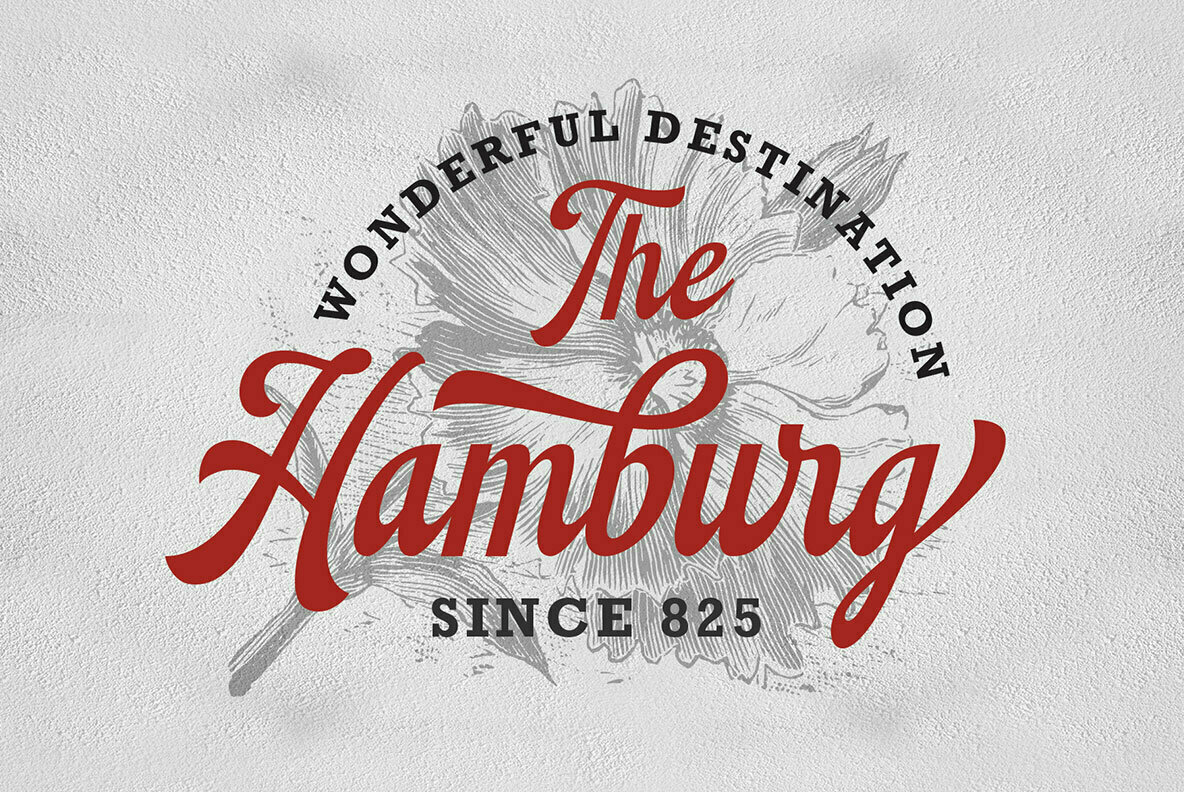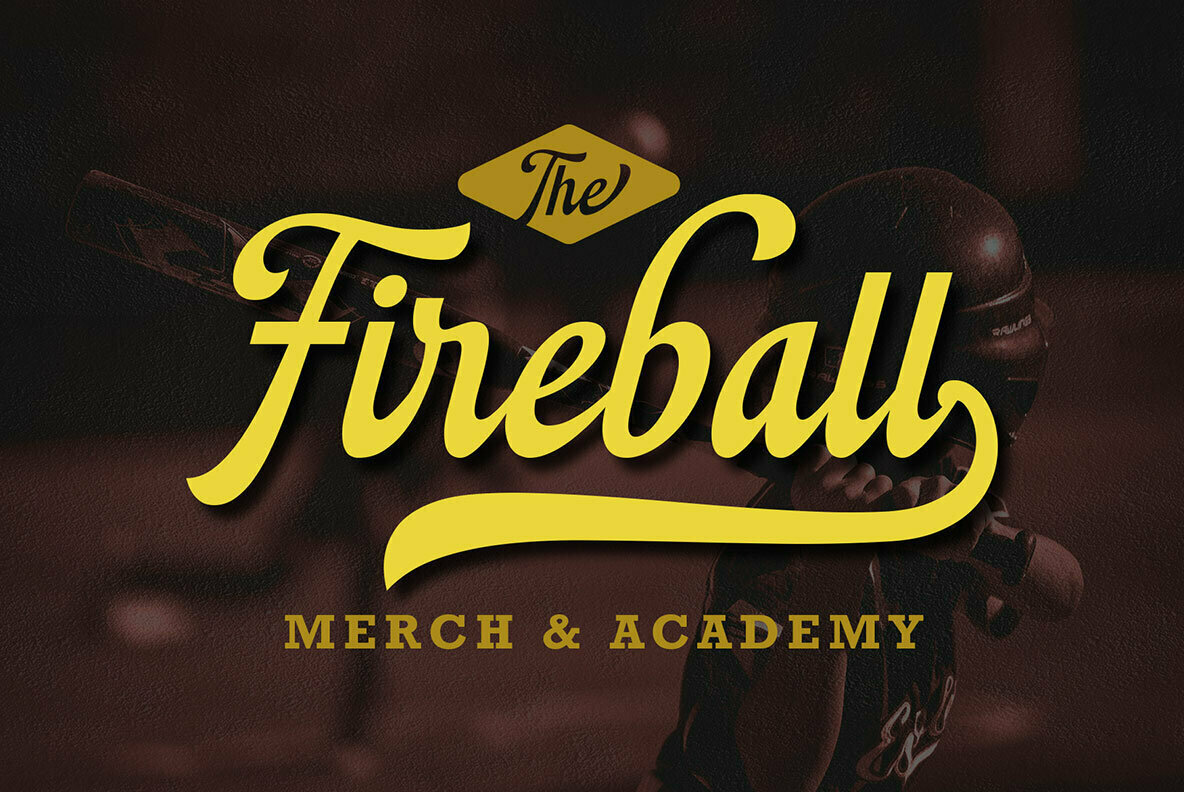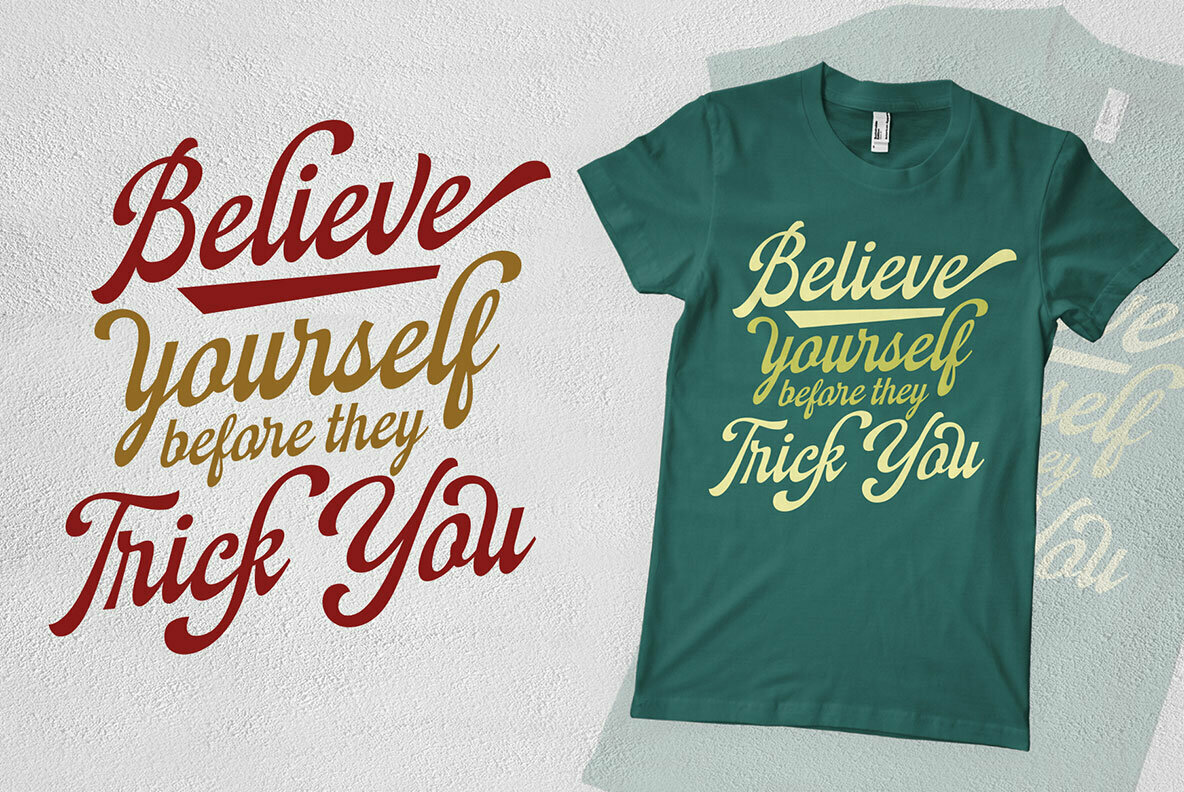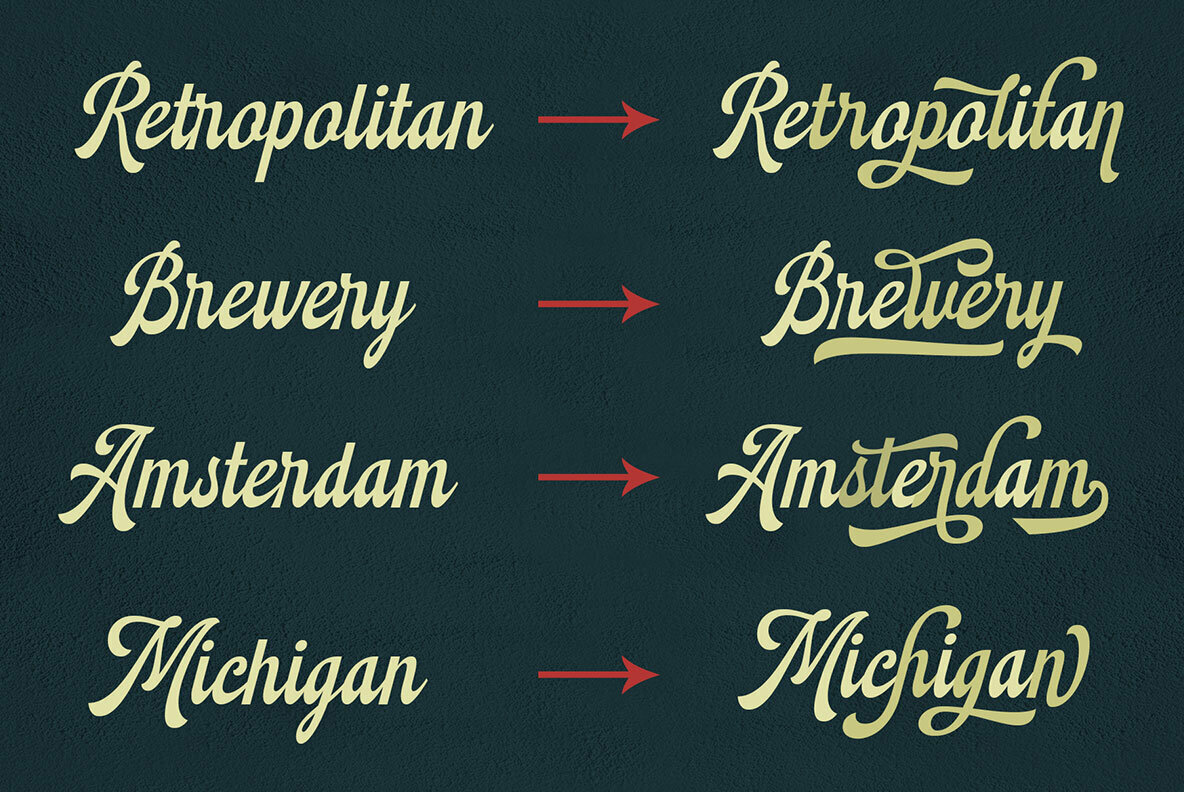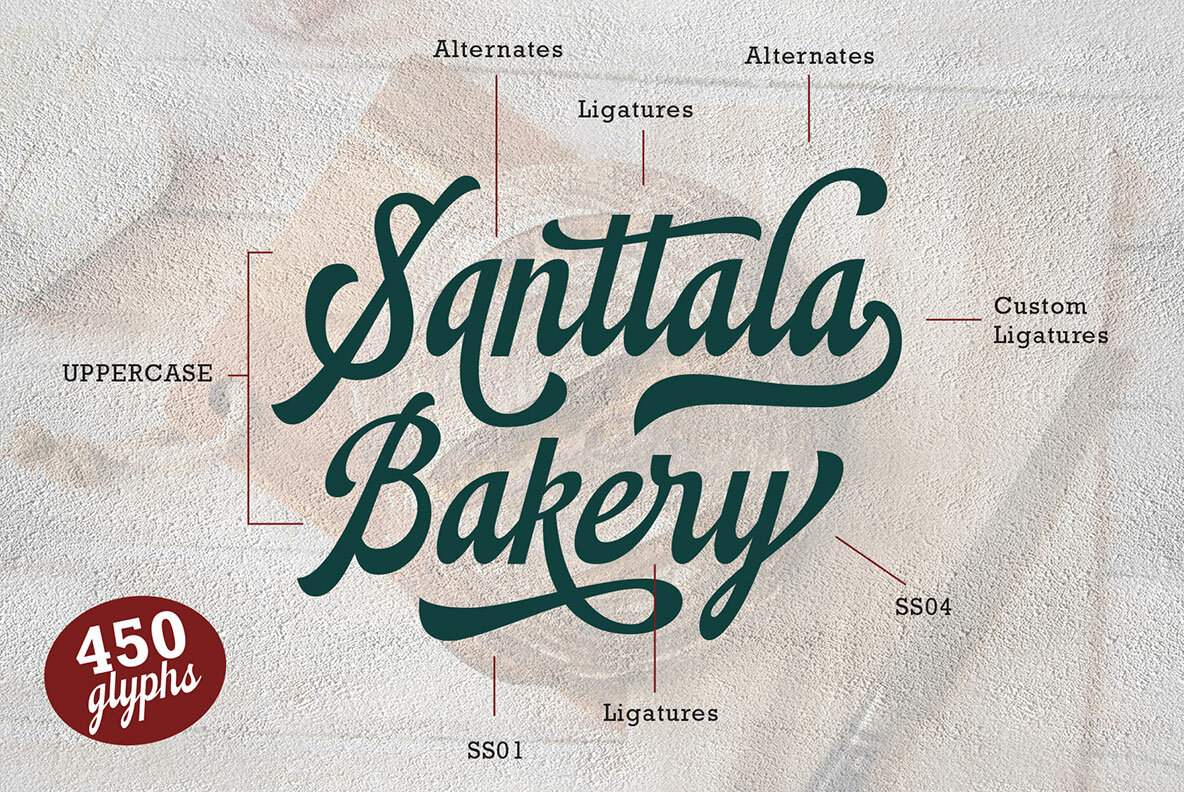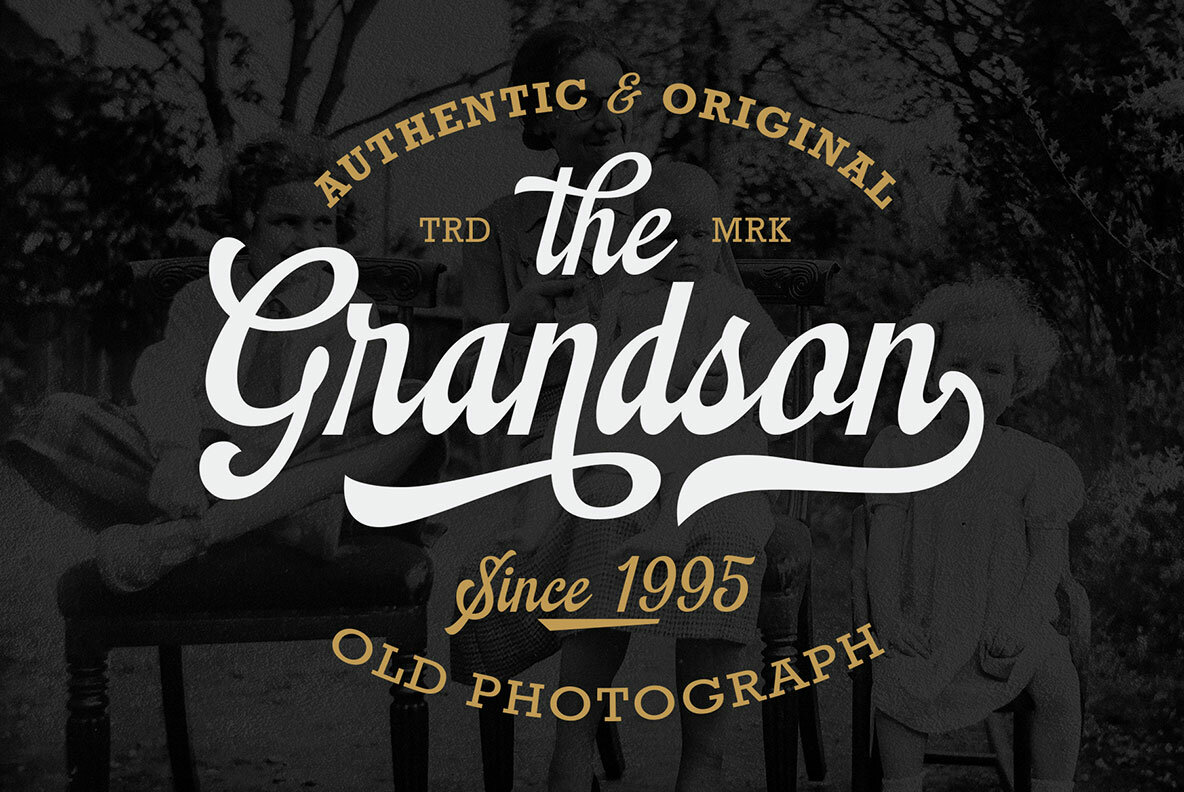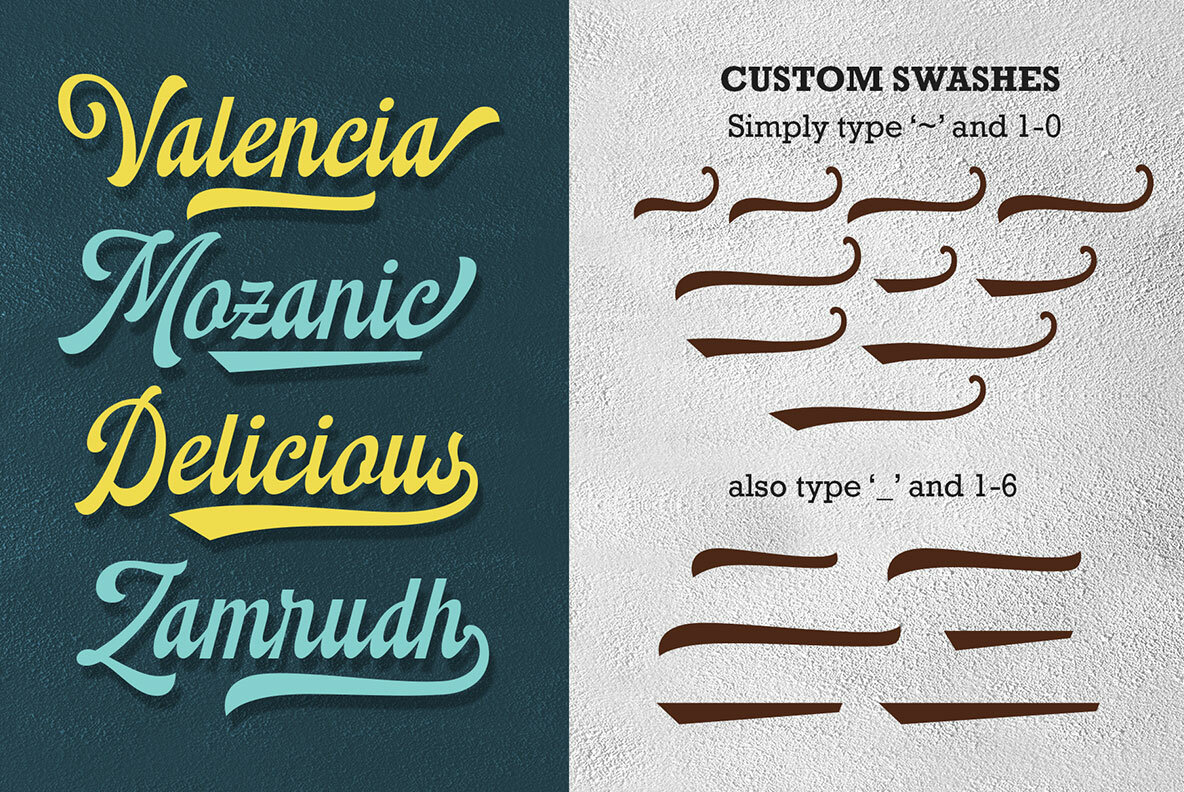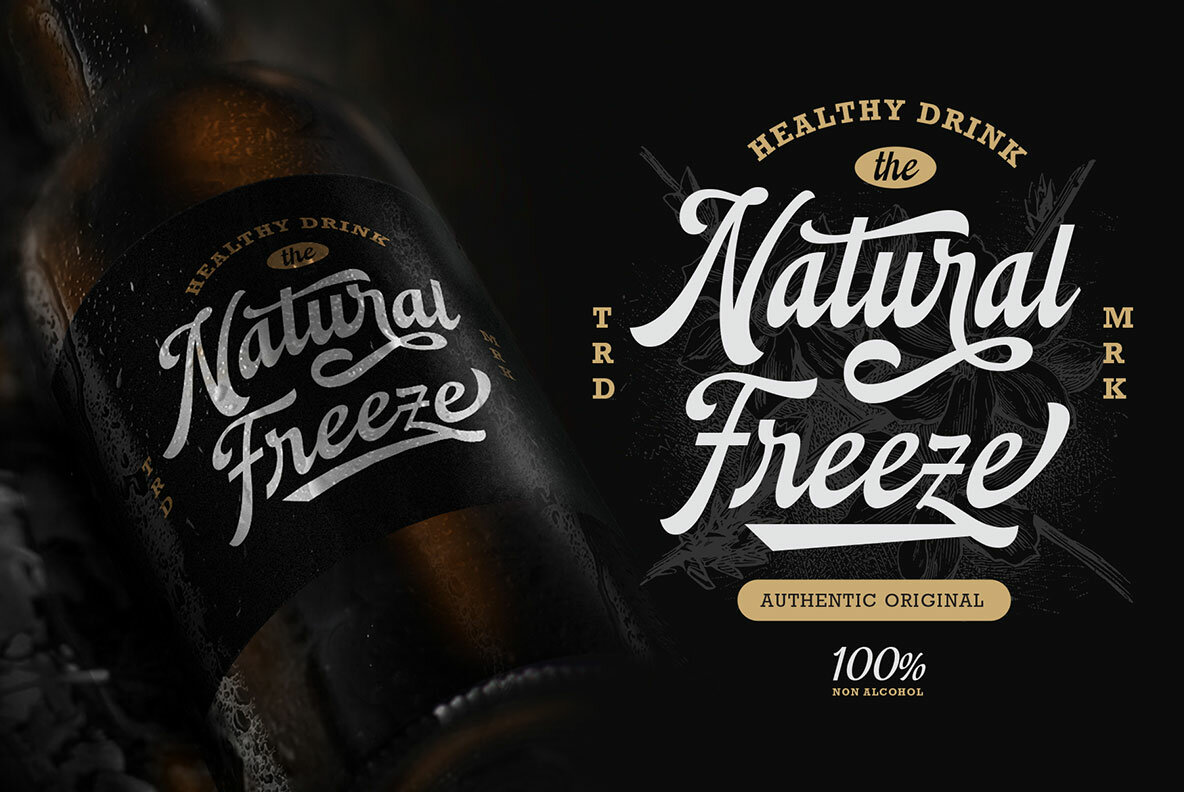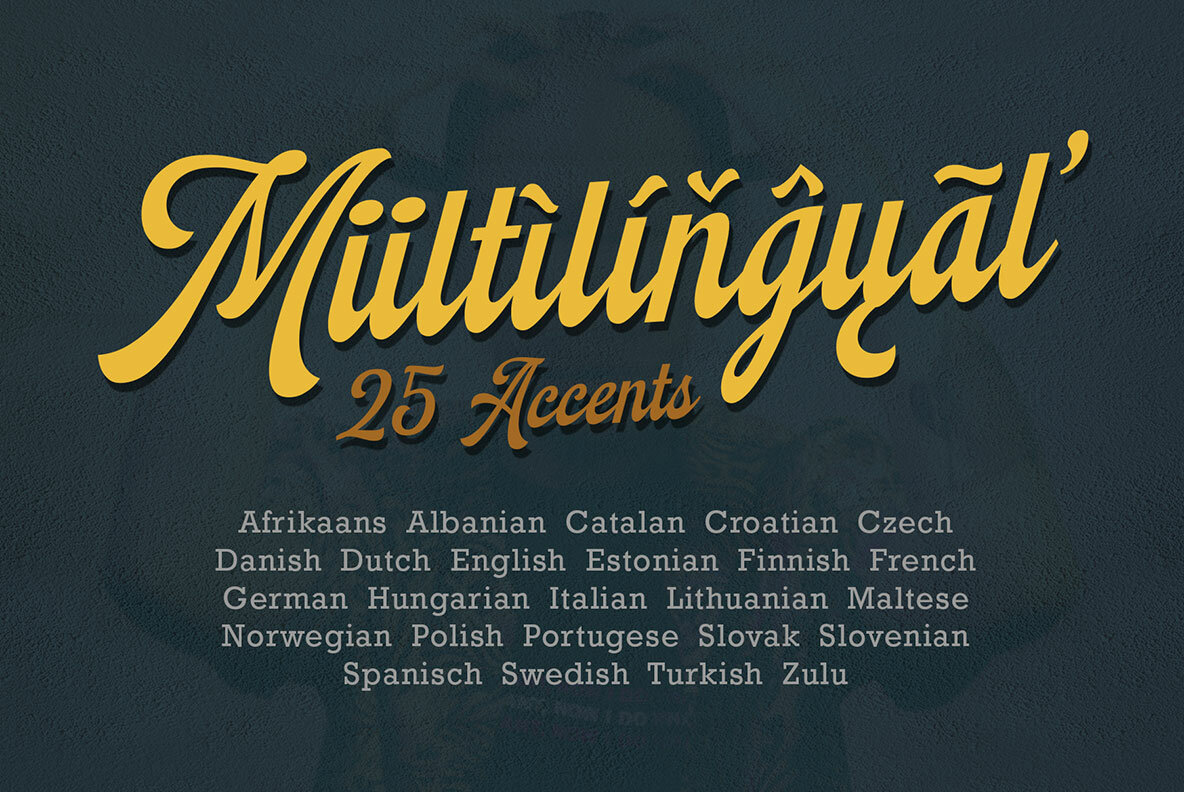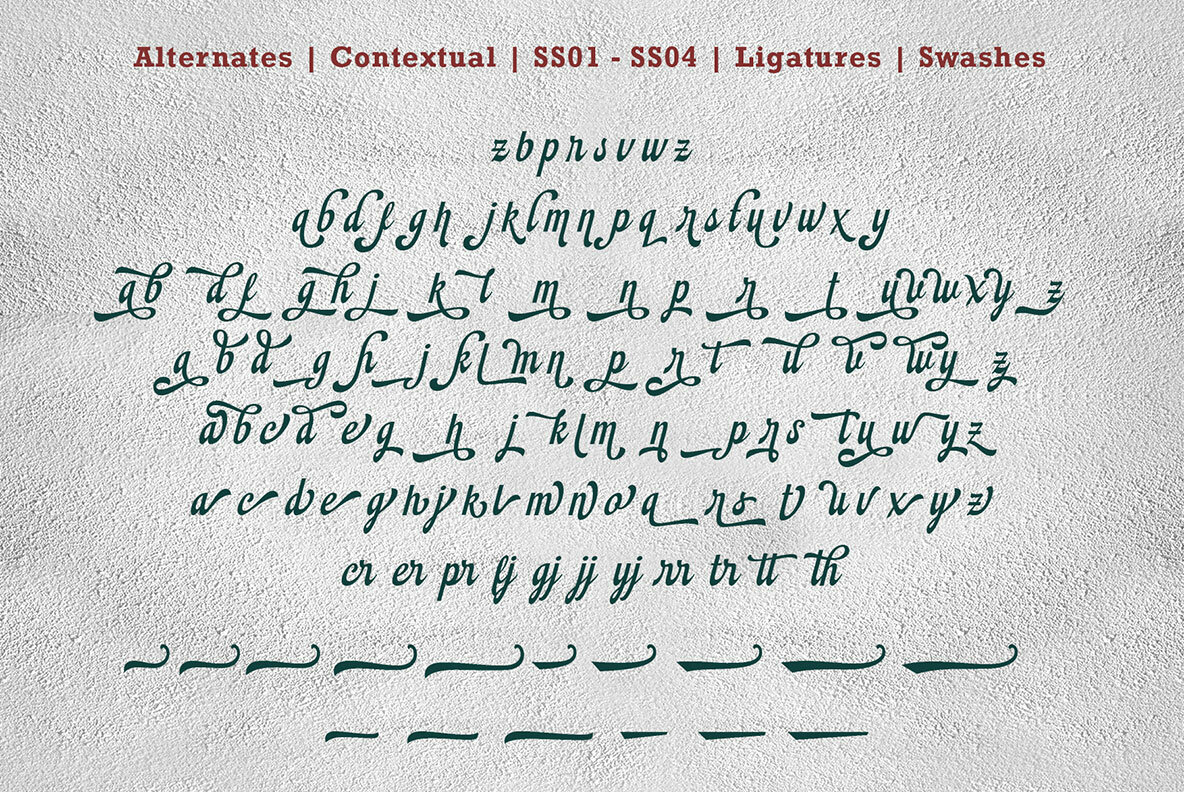
Montheim Font
Montheim
Montheim seamlessly combines the charm of the modern retro movement with the flair of brush calligraphy, offering a medium-weight script font distinguished by its unique stylistic choices. Ideal for creatives seeking versatility and aesthetic appeal, Montheim is replete with alternate characters, allowing for endless combinations and visual intrigue. Whether you're designing a classic storefront, a stylish logotype, or an eye-catching poster, this font provides the perfect balance between nostalgia and sophistication. With its adaptability in both vertical and horizontal layouts, Montheim is a reliable choice for a multitude of projects, seamlessly fitting into any creative vision where a touch of vintage elegance is desired.Montheim: Vintage Script Font for Timeless Design